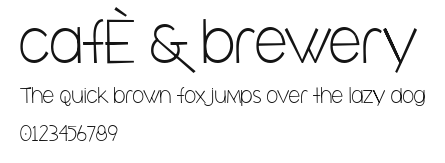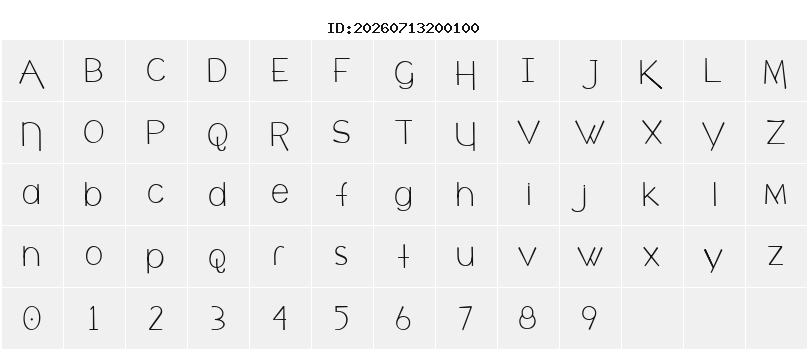
• Font Name: cafÈ & brewery
• Full Font Name: cafÈ & brewery
• Designer: Brittney Murphy
• Manufacturer: Brittney Murphy
About cafÈ & brewery.ttf
cafÈ & brewery.ttf is a modern, elegant sans-serif font designed for ultimate readability and visual harmony. Perfect for branding, headlines, web design, and print materials.